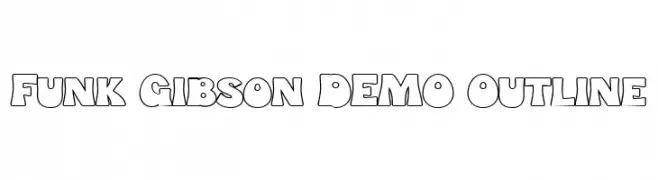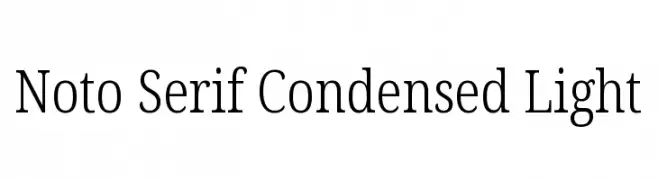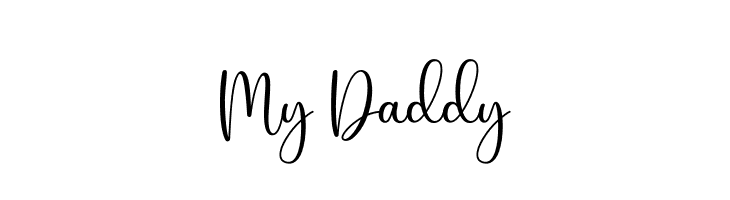
A modern, geometric font with tall, narrow characters and consistent stroke width.
A playful font with characters inside teapot shapes, featuring dotted steam for a whimsical touch.
A bold, playful outline font with a cartoonish style.
A dynamic, cursive script font with a lively, handwritten style.
A bold, industrial font with punk and cyborg influences.
A bold, playful font with rounded, bubbly characters ideal for fun, retro designs.
A modern, geometric font with characters enclosed in circles.
A refined, light serif font with a condensed structure and elegant style.
A futuristic, condensed font with angular, geometric shapes.